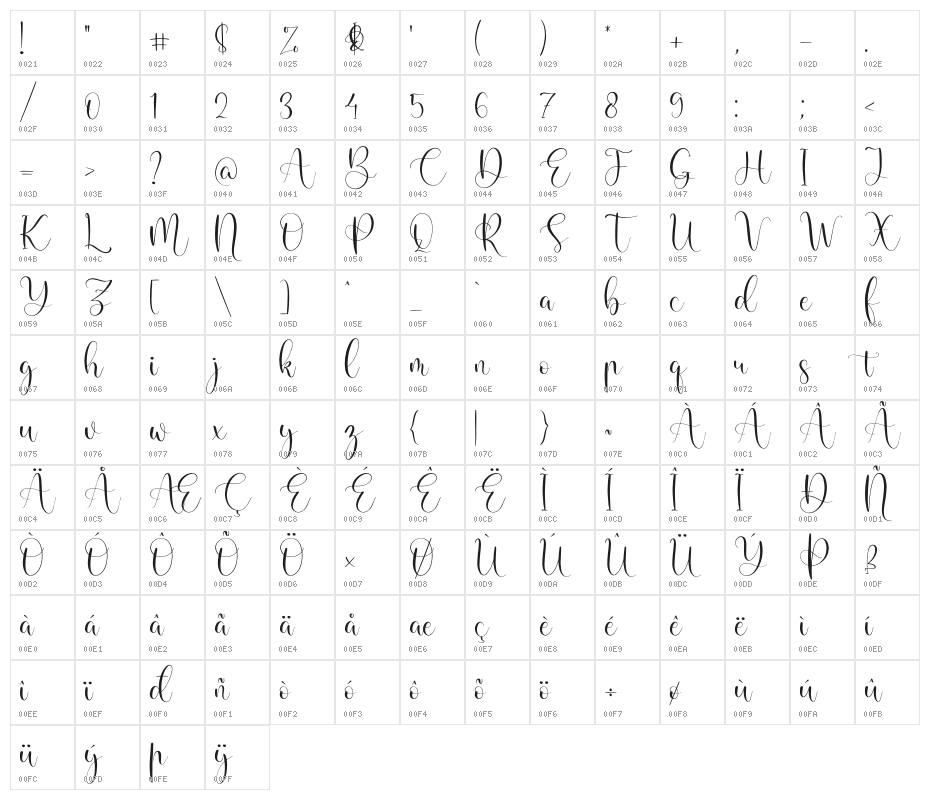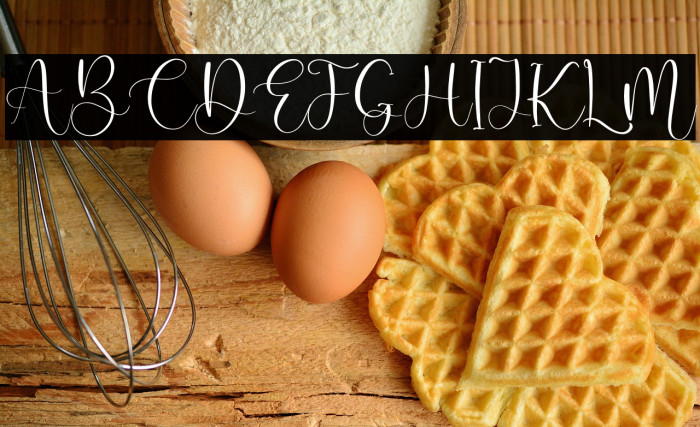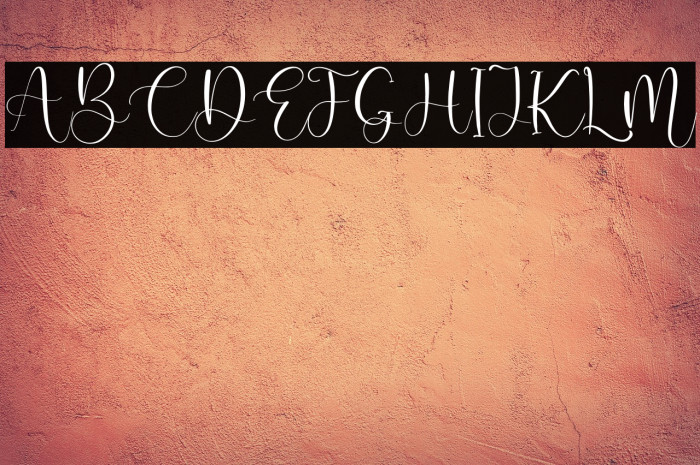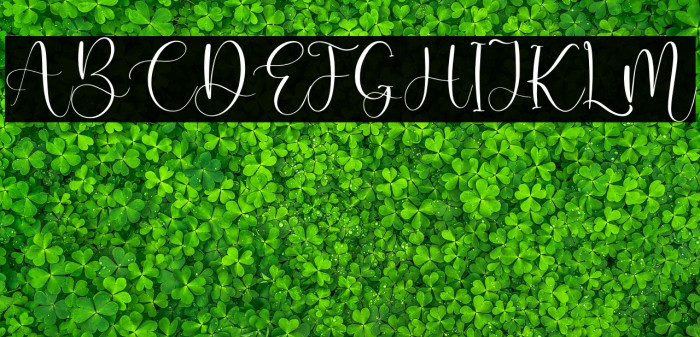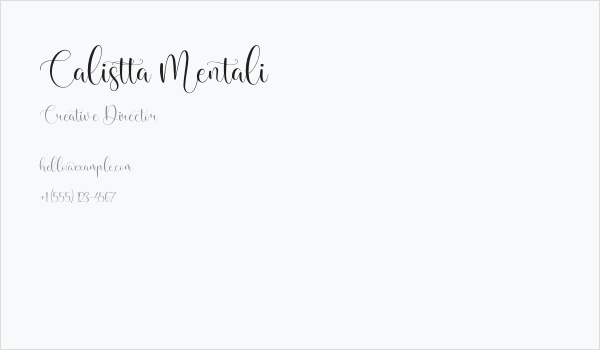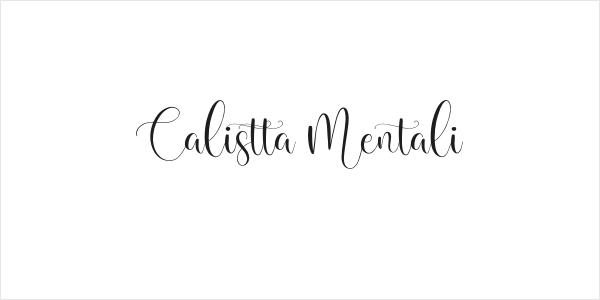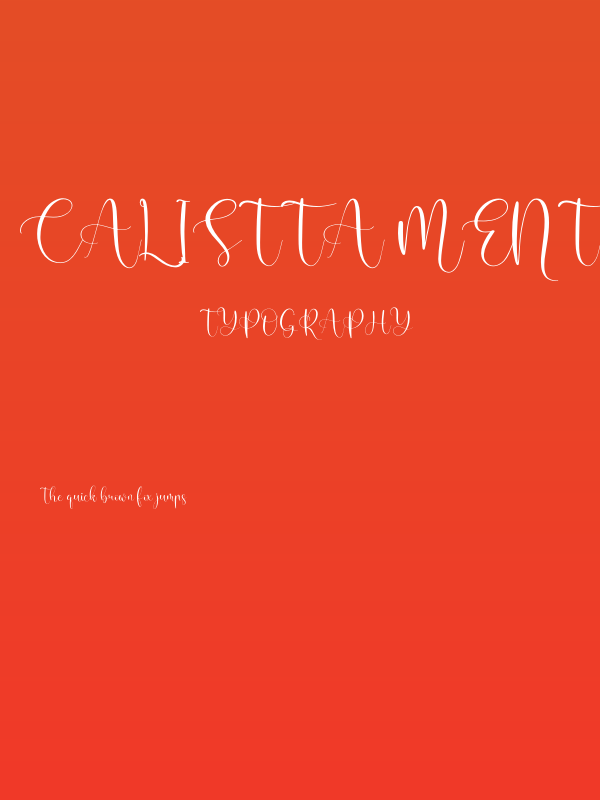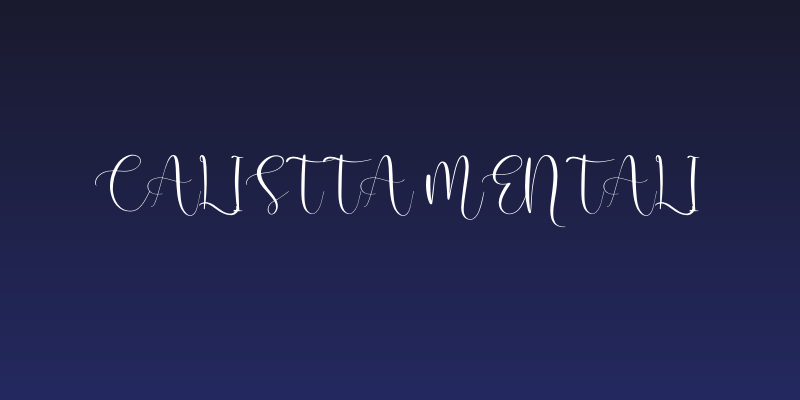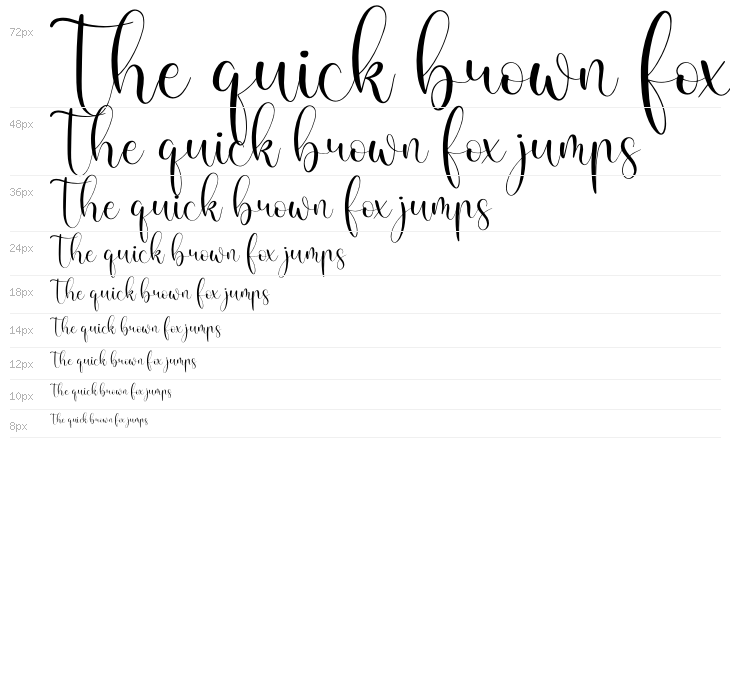
Calistta Mentali Font
Calistta Mentali Description
This elegant script font features a flowing, cursive style with intricate swashes and loops that give it a sophisticated and artistic appearance. The uppercase letters are adorned with elaborate flourishes, while the lowercase letters maintain a more consistent flow, creating a harmonious balance. The numbers and special characters are designed with the same attention to detail, ensuring a cohesive look across all glyphs. This font exudes a sense of elegance and grace, making it ideal for projects that require a touch of class and refinement.
| Overall Style | Elegant, Artistic |
| Use Case | Logos, Invitations, Decorative Text |
| Proposed Projects | Ideal for wedding invitations, elegant branding, luxury packaging, and artistic posters. |